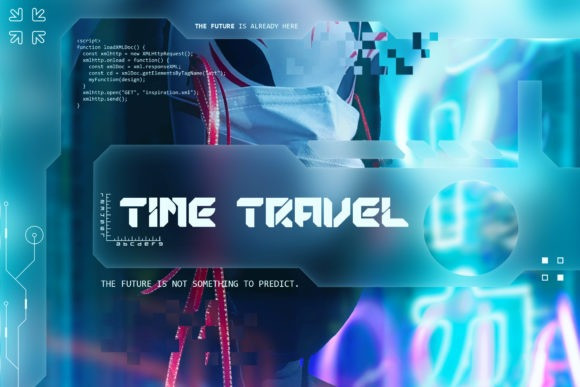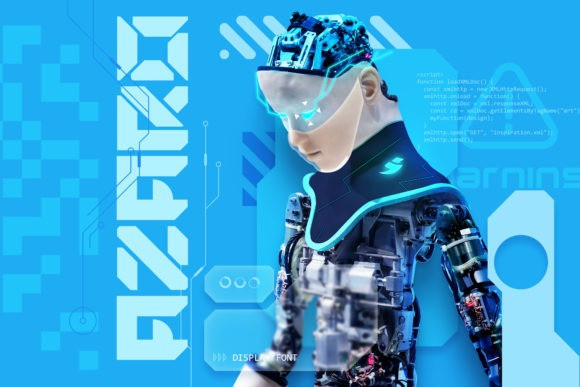
Azaro Font
Azaro Font is a cool, futuristic and bold display font. You can use it for various projects, such as blog posts, logos, branding, ads, invitations, greeting cards, planners, photo albums, decorations, and much more. Add it to any of your designs, and enjoy the results!